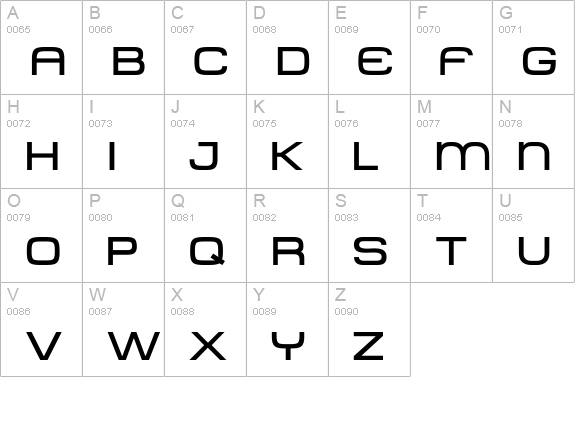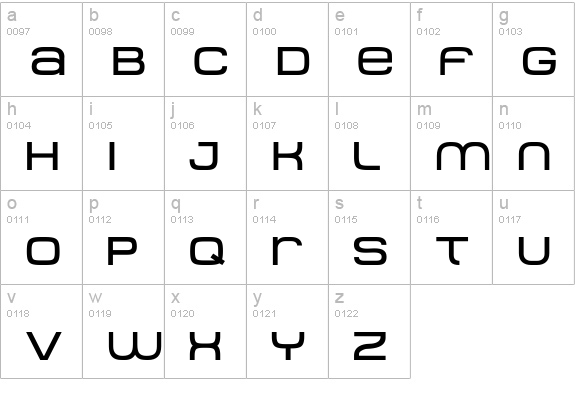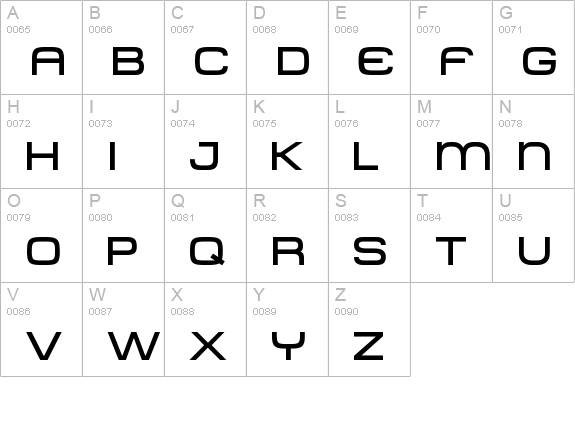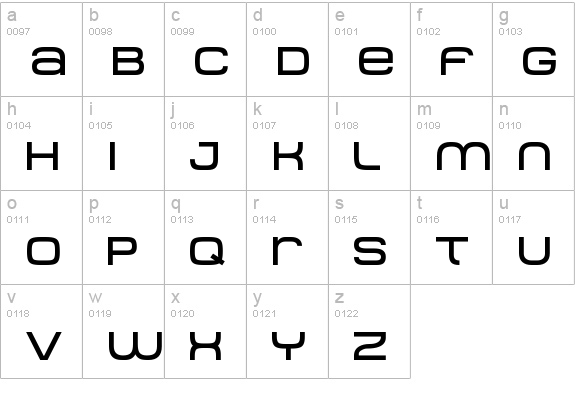
MetroDF Font Details
MetroDF is a sleek and modern font that combines a minimalist design with a touch of sophistication. Its clean lines and geometric shapes give it a contemporary look that is perfect for a wide range of design projects. Whether you're creating a logo, website, or print materials, MetroDF's versatility makes it a great choice for any project. This font is not only stylish and eye-catching, but it's also completely free to download. You can access MetroDF and start using it in your designs right away by visiting FontsMarket.com. With its bold and distinctive style, MetroDF is sure to make a statement in any design you create. Download it today and add a touch of modern elegance to your projects.